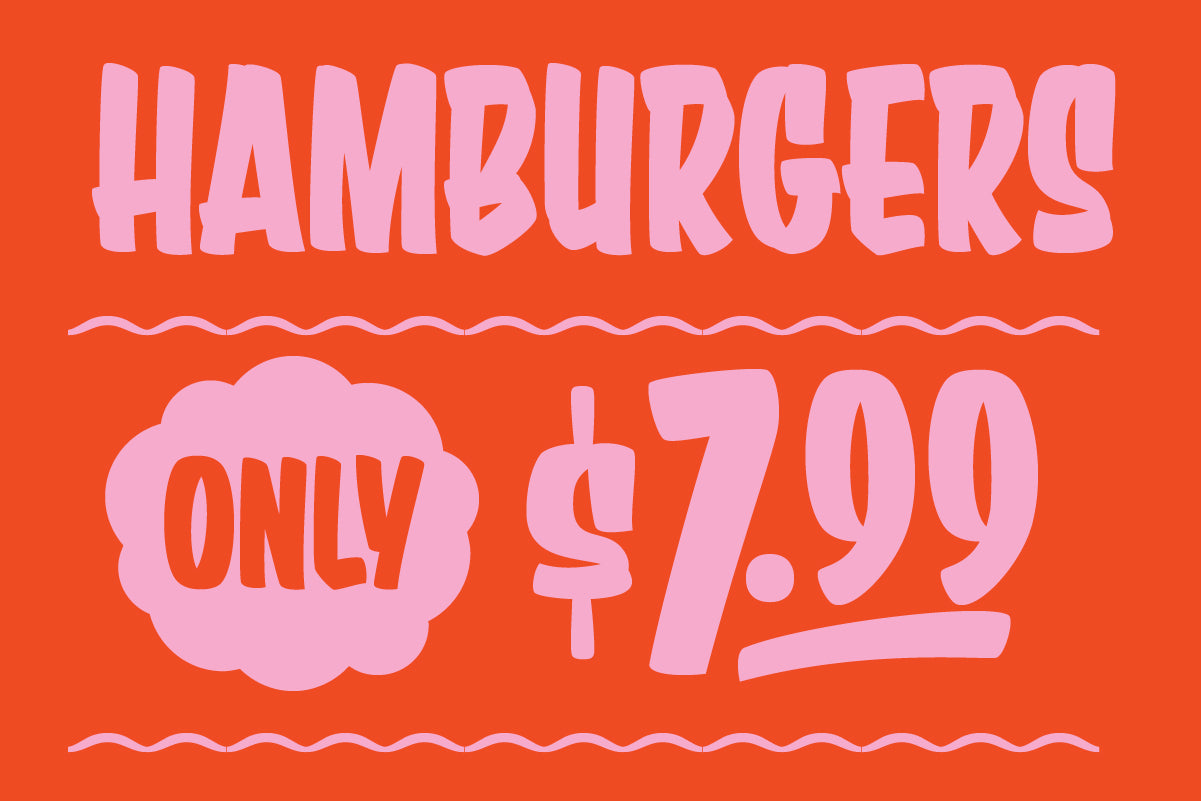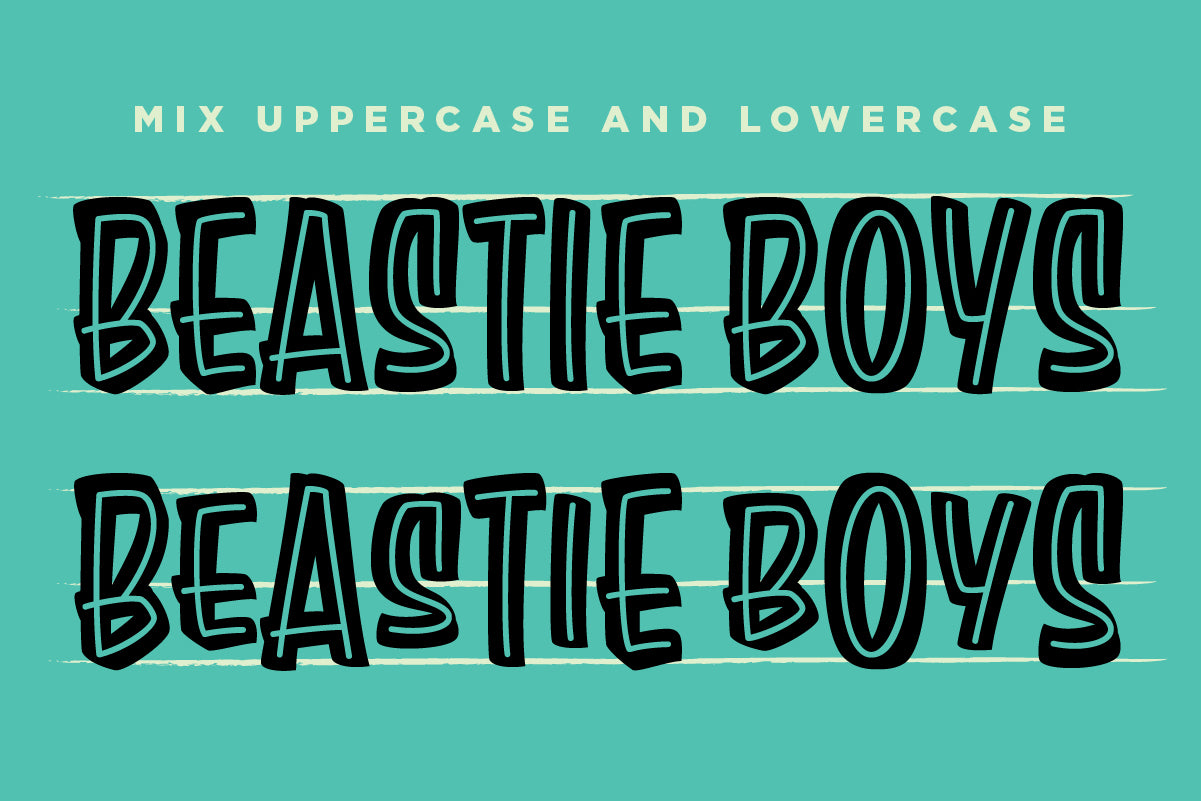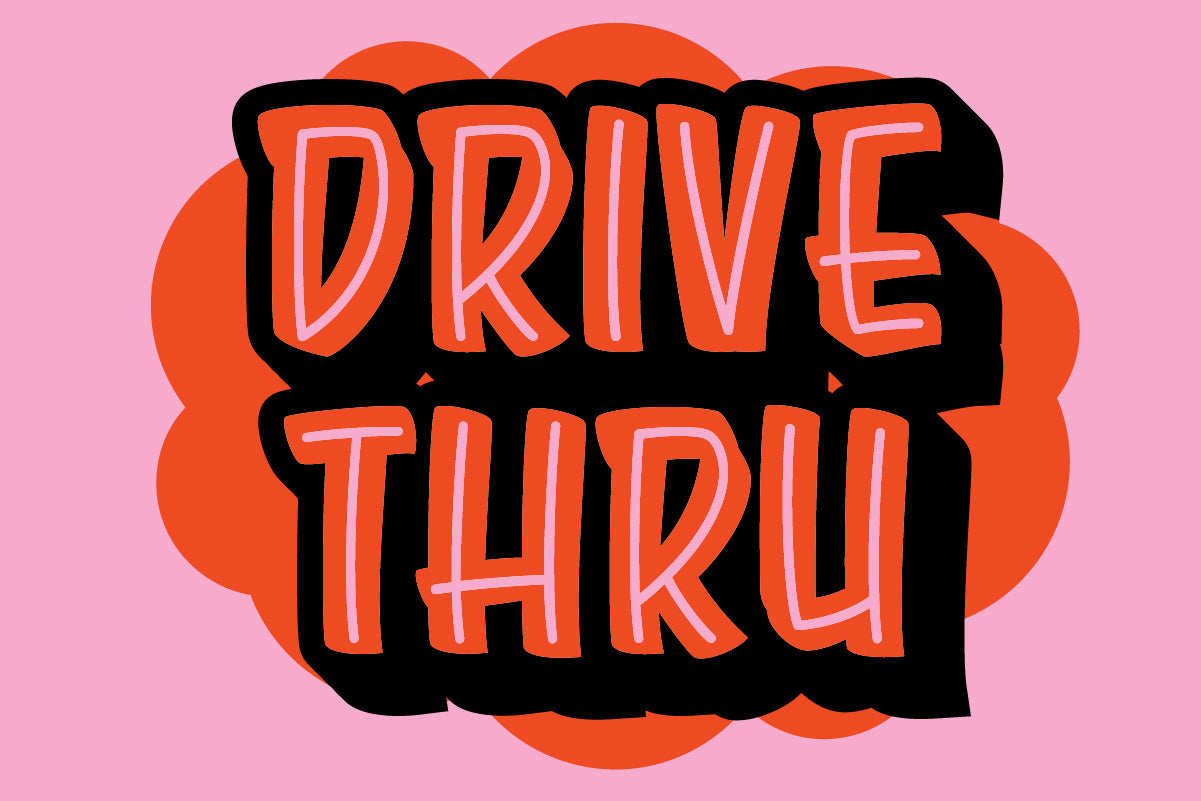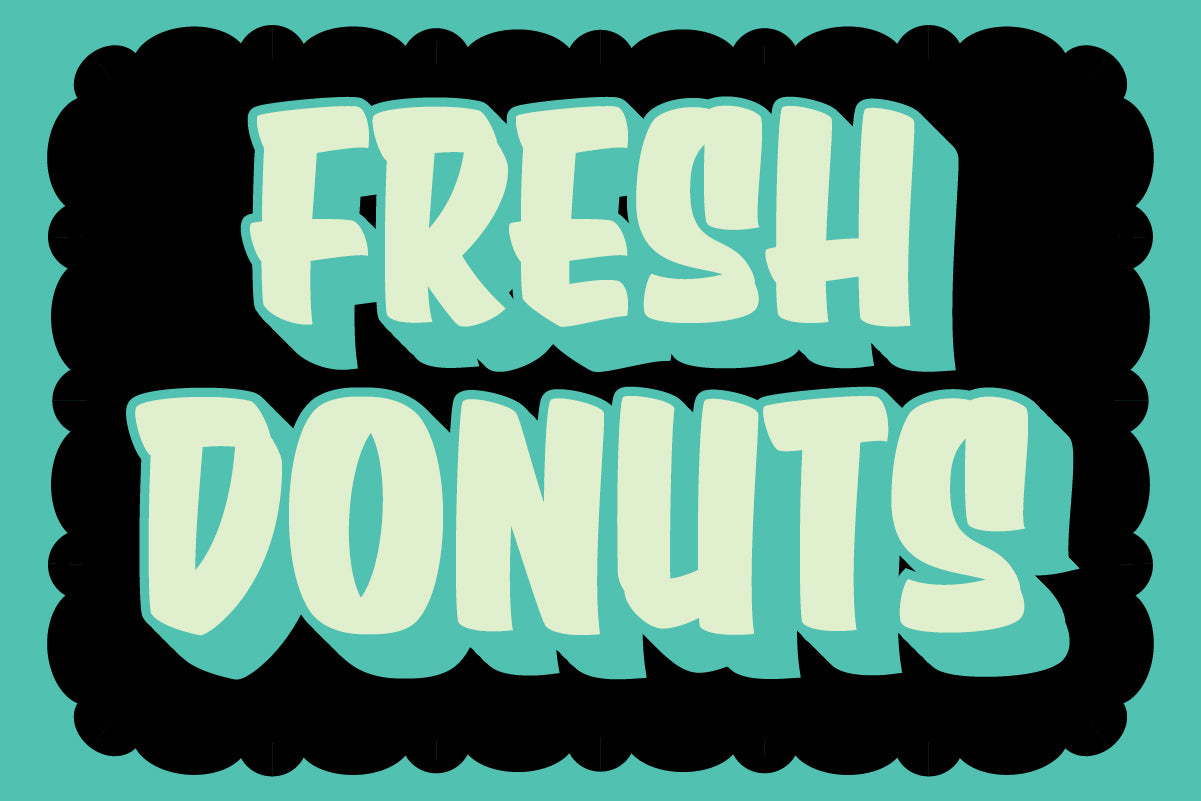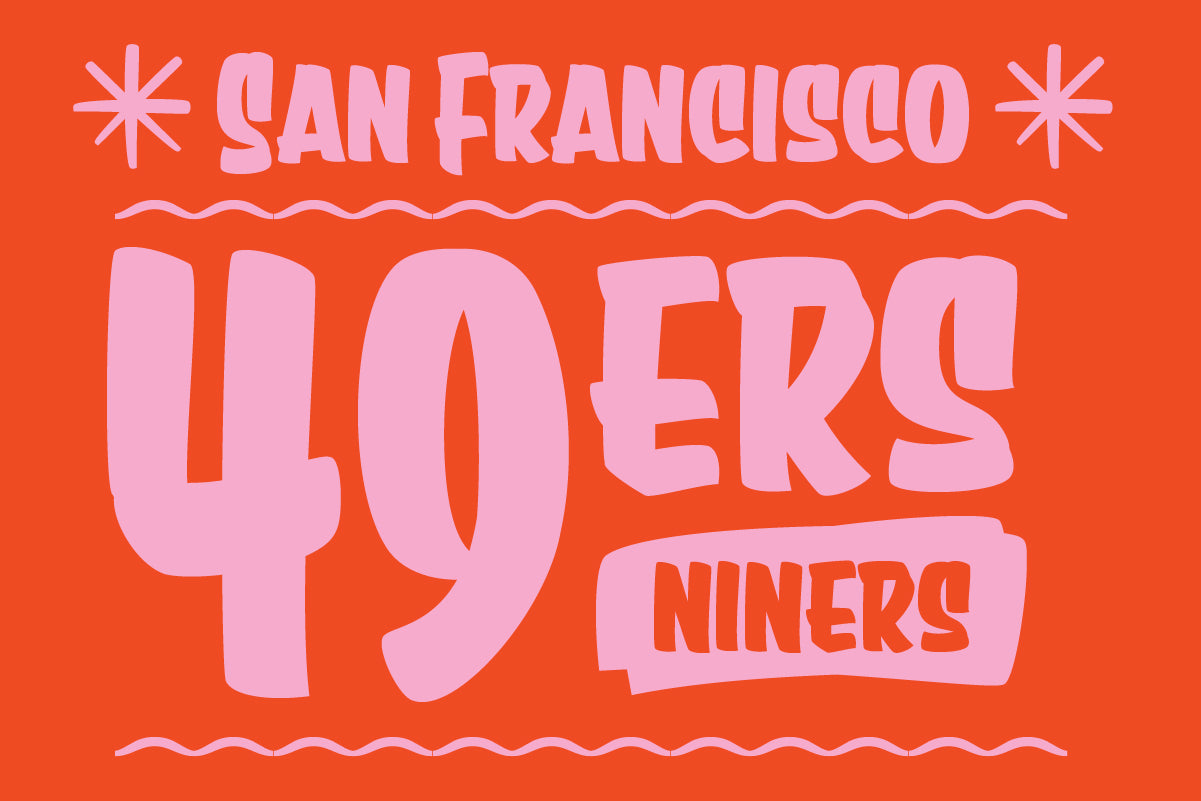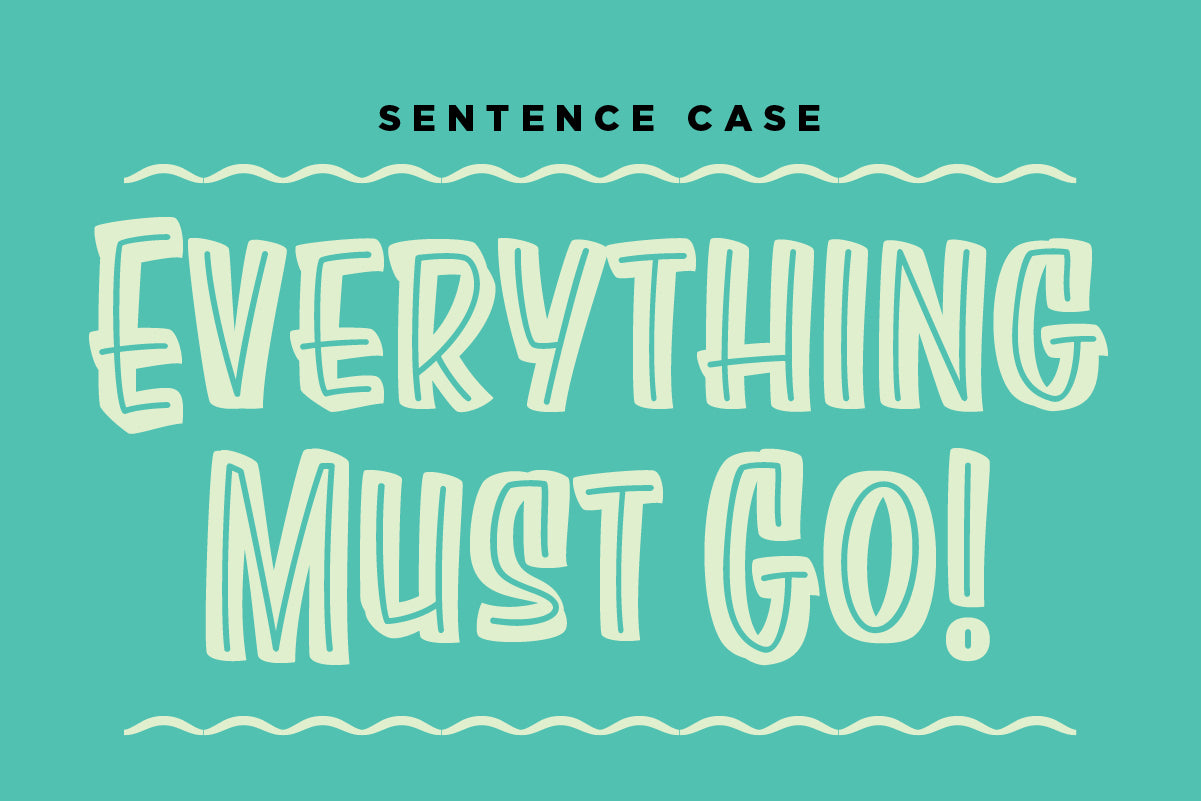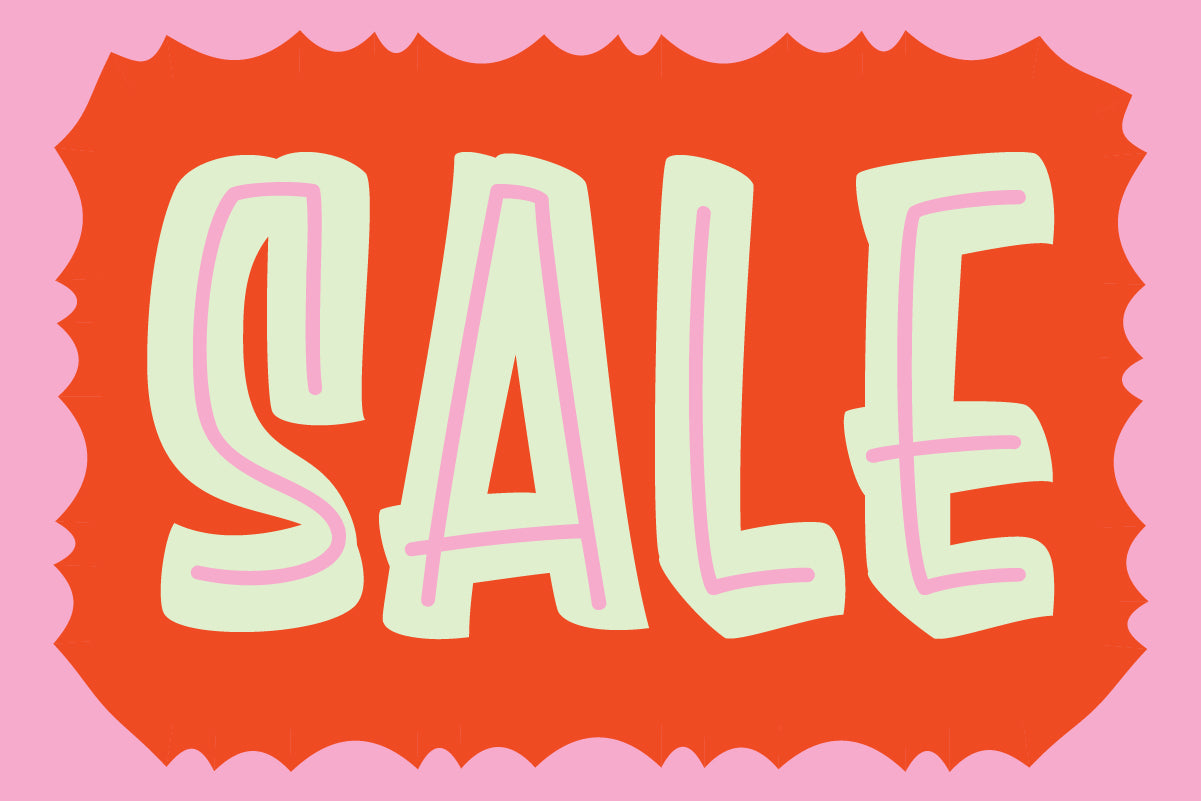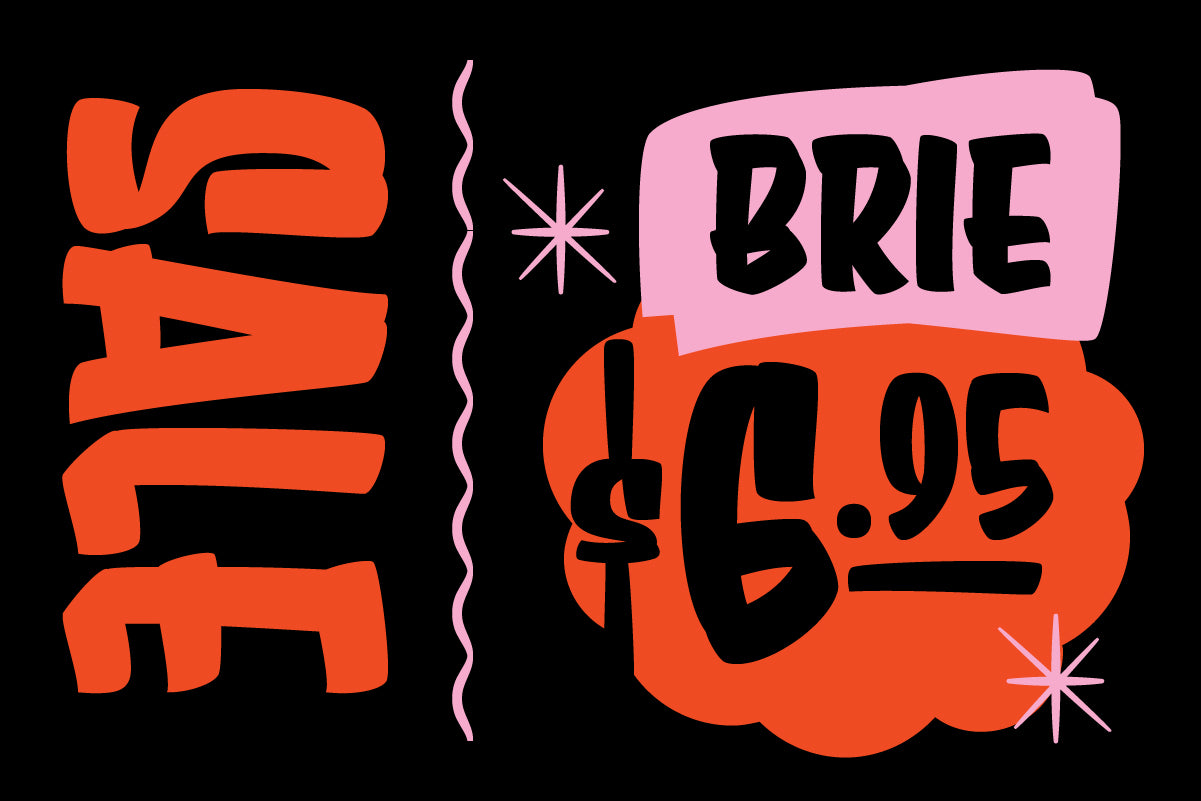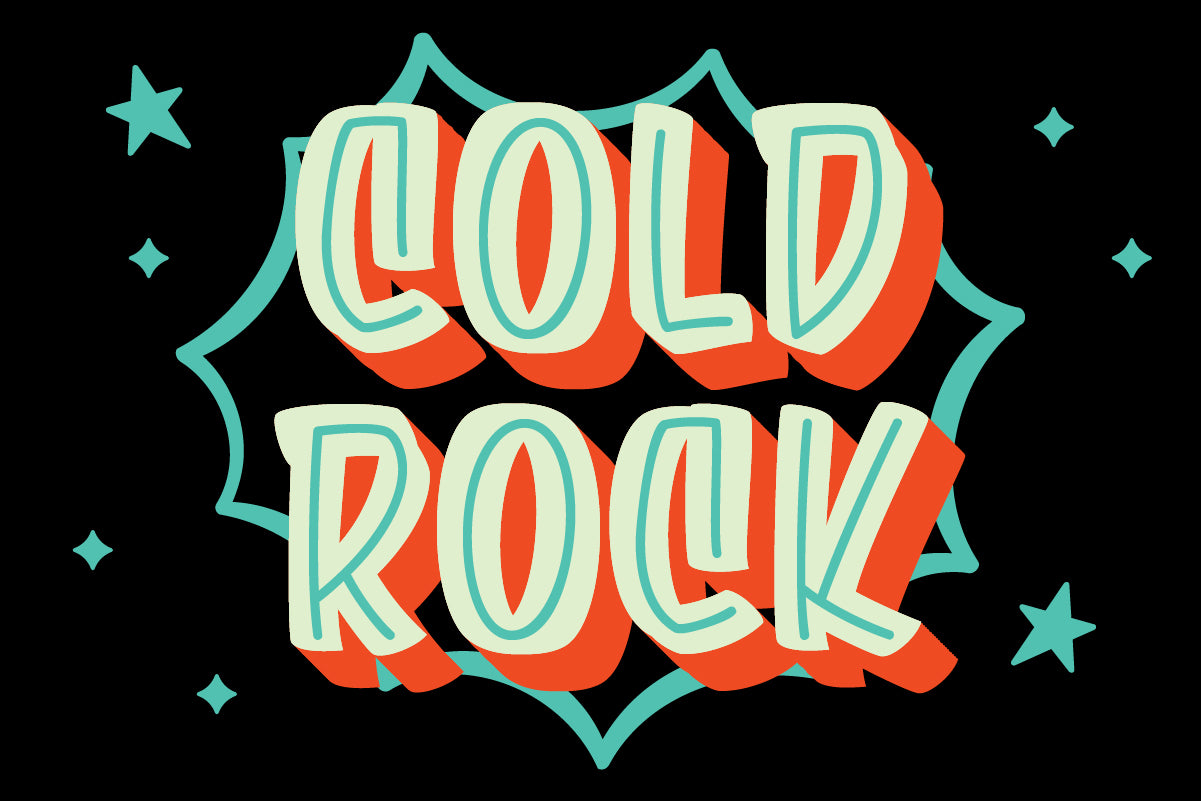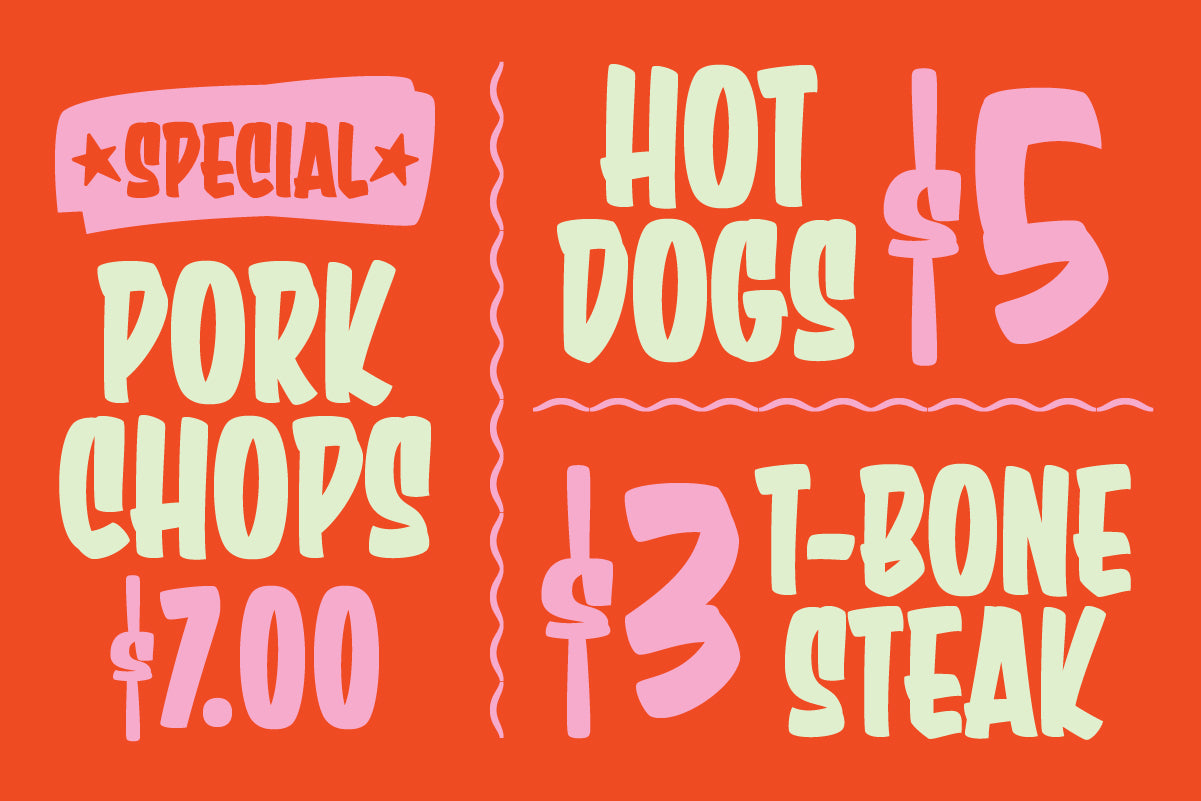
Sure Shot Font
Mid-century retailers were masters of creating signage that grabbed consumers attention. The secret bold, easy-to-read, and personality-packed typography combined with bright colors and creative lockups.
Sure Shot is a nod to these classic letterforms. Crafted with the confident strokes of a professional lettering artist and condensed just enough to make it easy to make headings, subheads, and body copy.
If you're looking to grab your audience's attention with a potent dose of tradition and character, Sure Shot is guaranteed to get the job done.
• Bold, mid-century brush script. Inspired by classic hand-painted signs from retail's golden era.
• Three Coordinated Styles. Includes Brush, Inline, and Inlay versions for creating authentic layered lettering and dimensional type treatments.
• European Language Support. Extensive accented character coverage makes it easy to create work for international audiences.
• Perfect for Branding. Ideal for logos, packaging, merchandise, advertising, posters, and promotional graphics.
• Layered Vintage Effects. Combine the three styles to create rich retro lettering that looks custom illustrated.